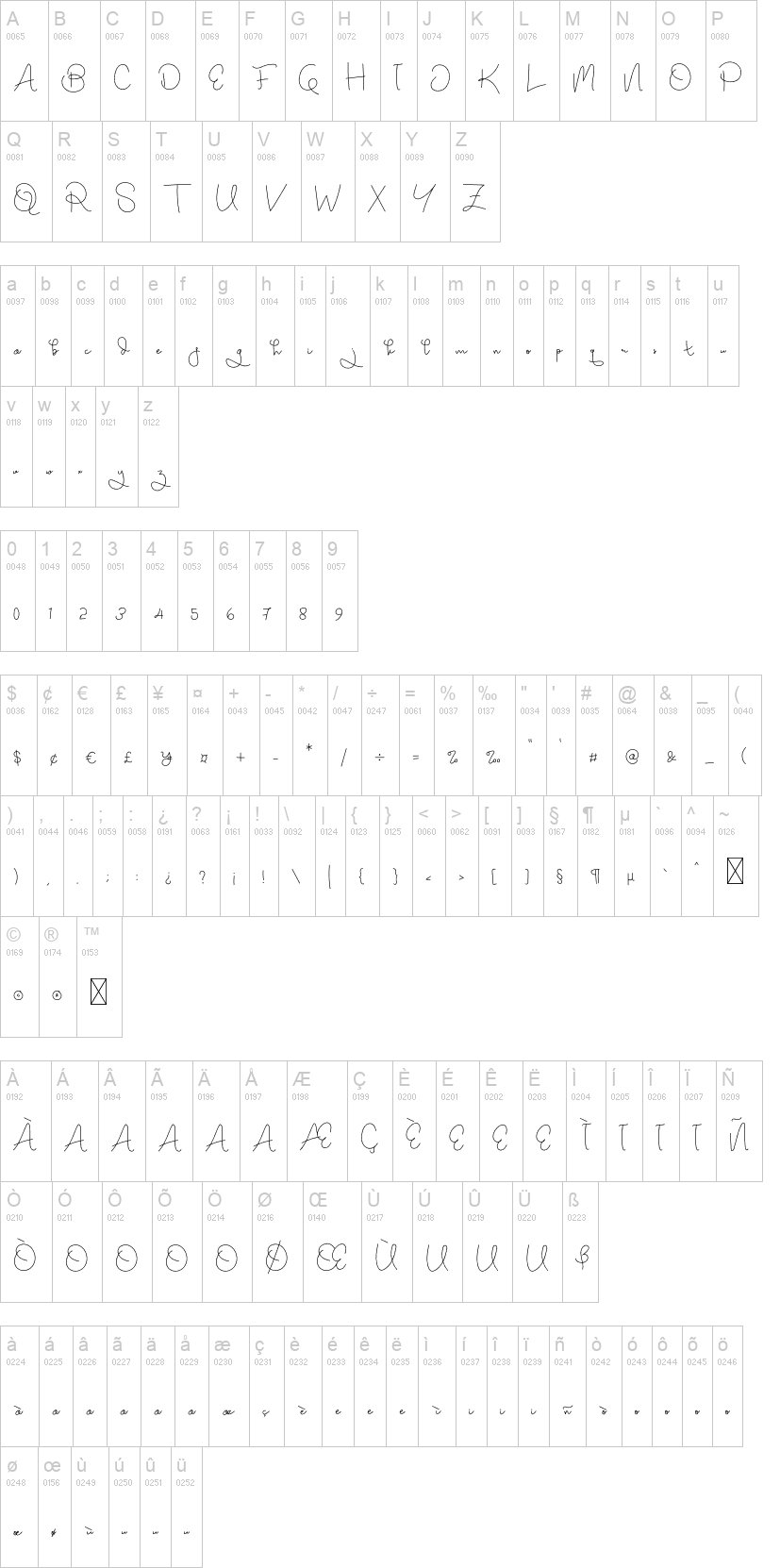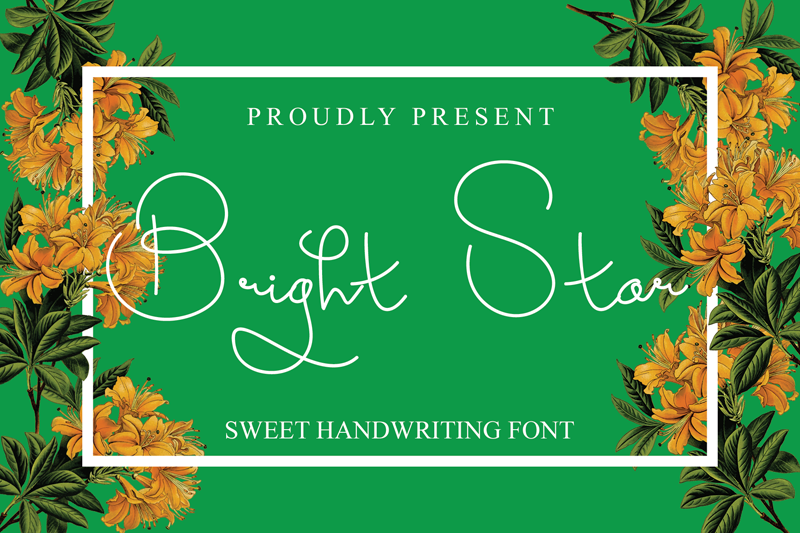
Note of the authorBright Star is a thin lettered and cursive handwritten font. Masterfully designed to become a true favorite, this font has the potential to bring each of your creative ideas to the highest level!